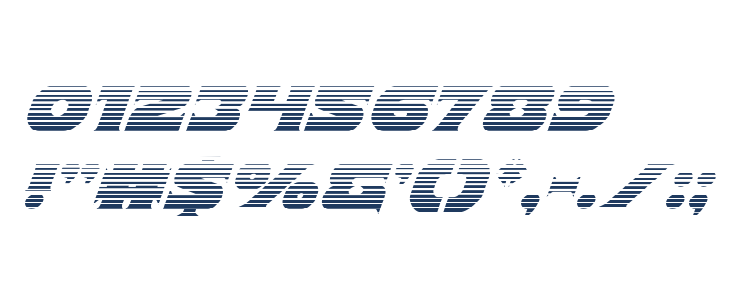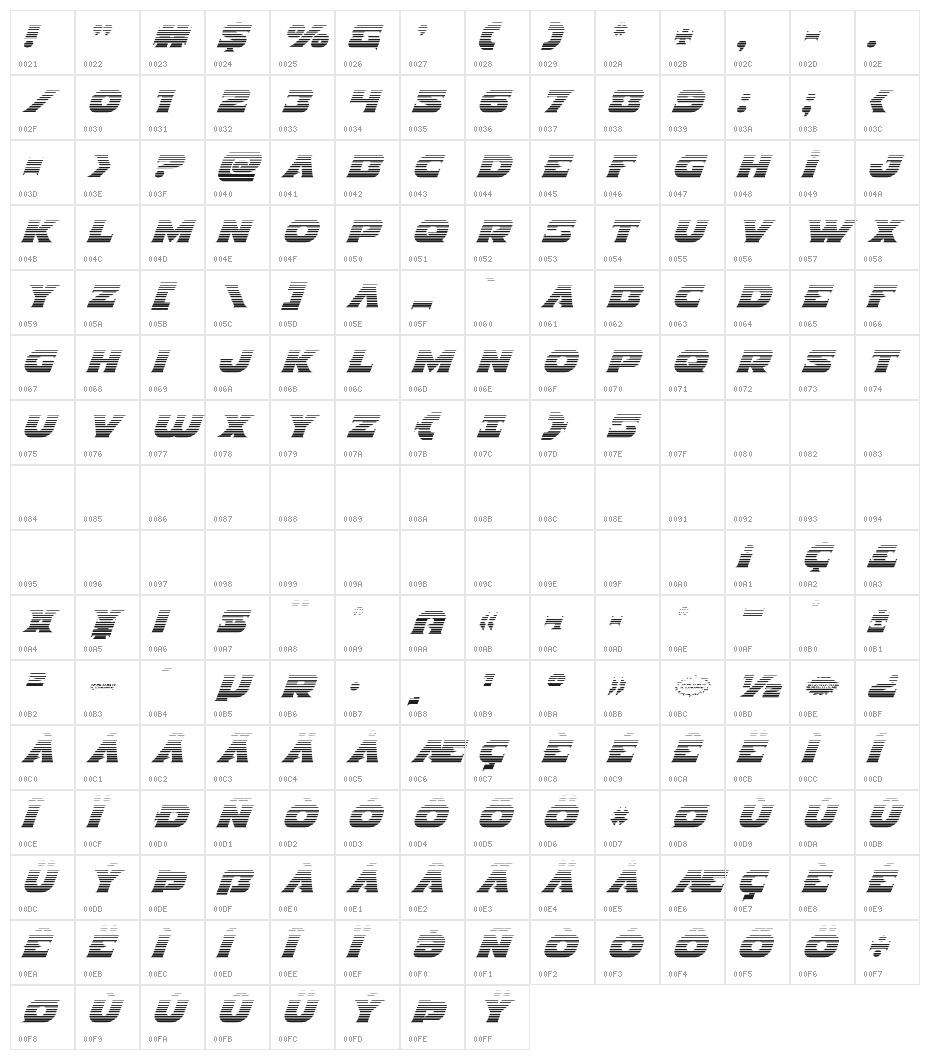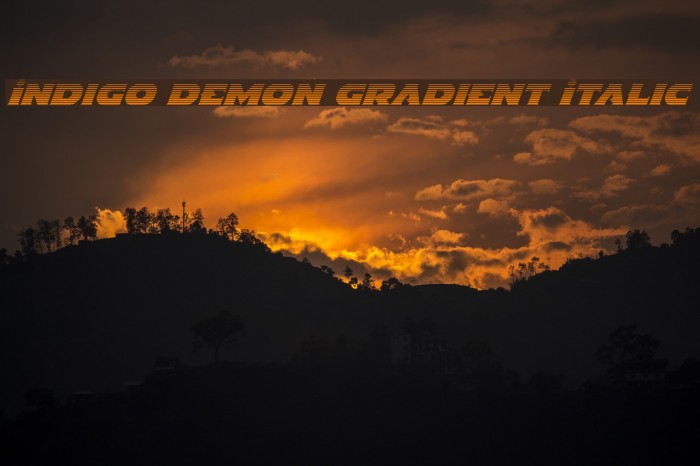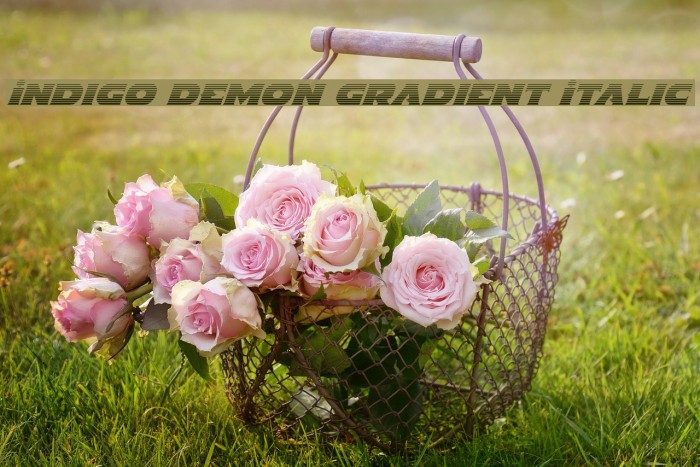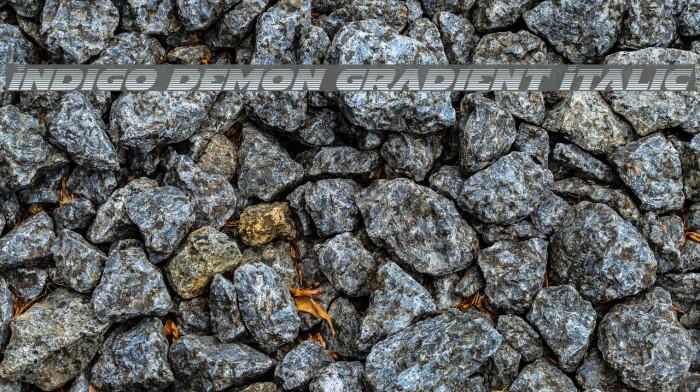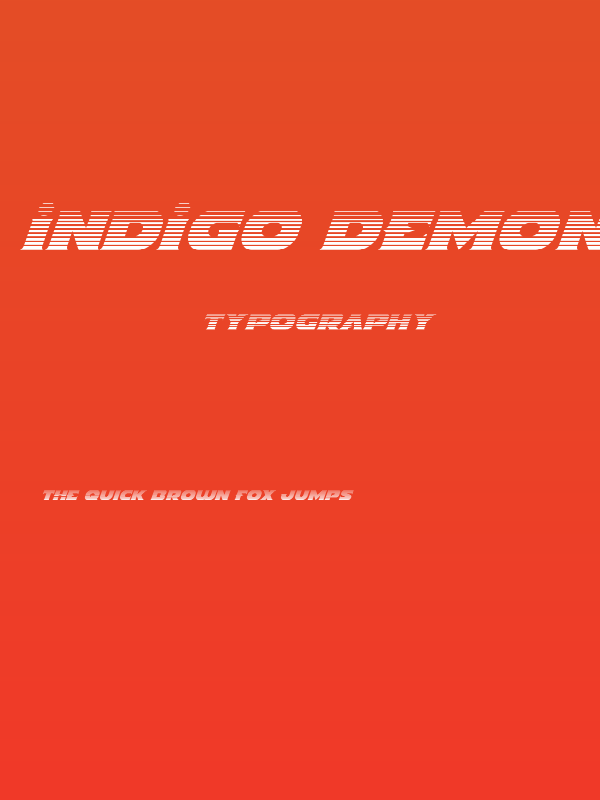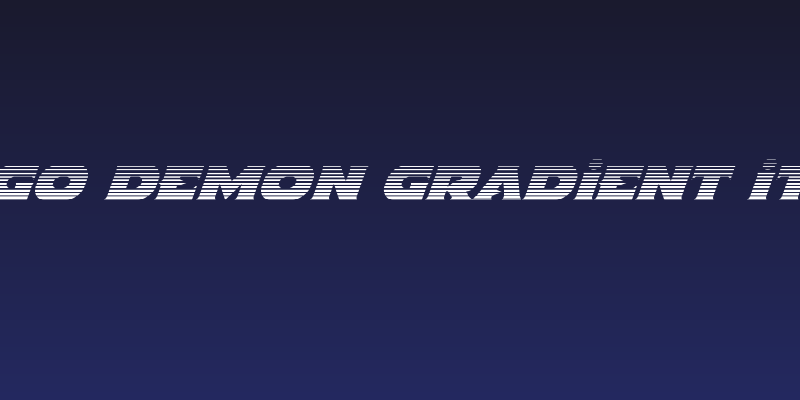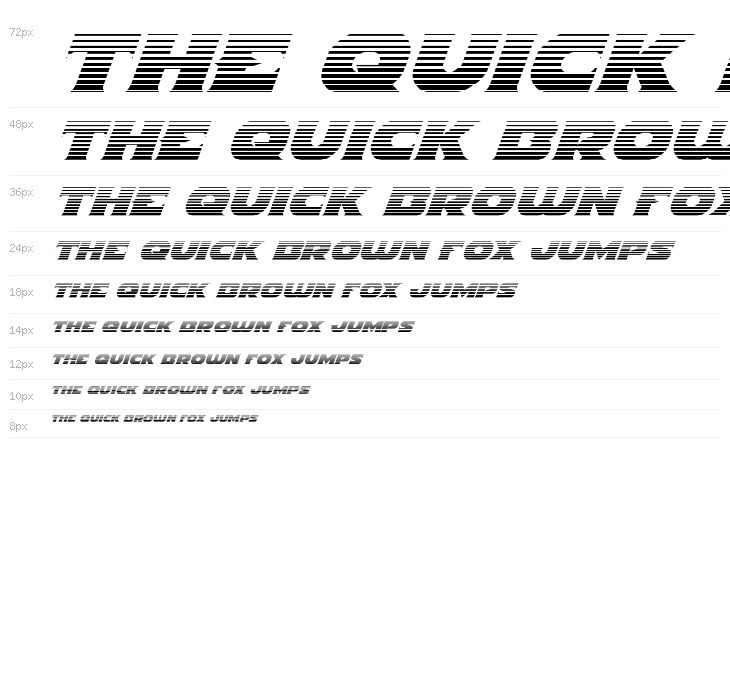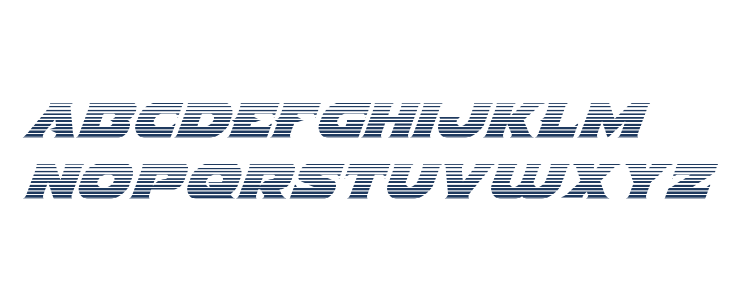
Indigo Demon Gradient Italic Font
Indigo Demon Gradient Italic Description
This font features a bold, italicized style with a unique gradient effect created by horizontal lines running through each character. The design is dynamic and modern, giving a sense of movement and speed. The uppercase and lowercase letters maintain a consistent slant, enhancing the italicized appearance. The numbers and special characters follow the same stylistic approach, ensuring uniformity across all elements. The font's distinct line pattern adds a decorative touch, making it stand out in various design applications.
| Proposed Projects | Ideal for futuristic designs, sports branding, automotive advertisements, and dynamic posters. |